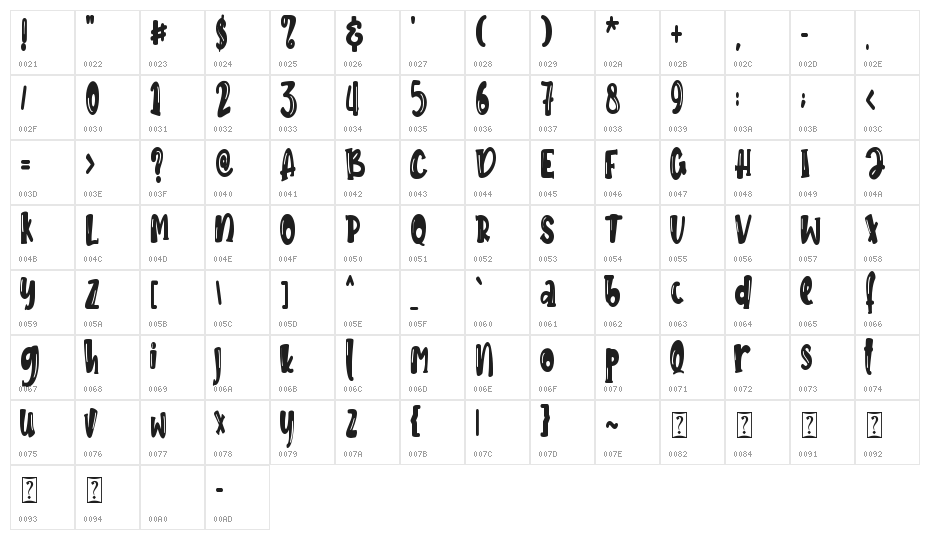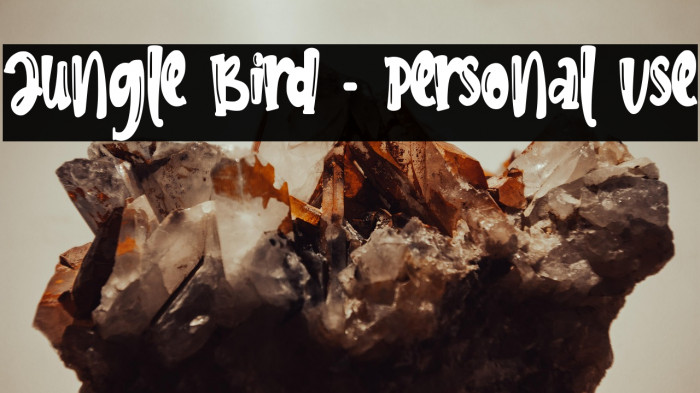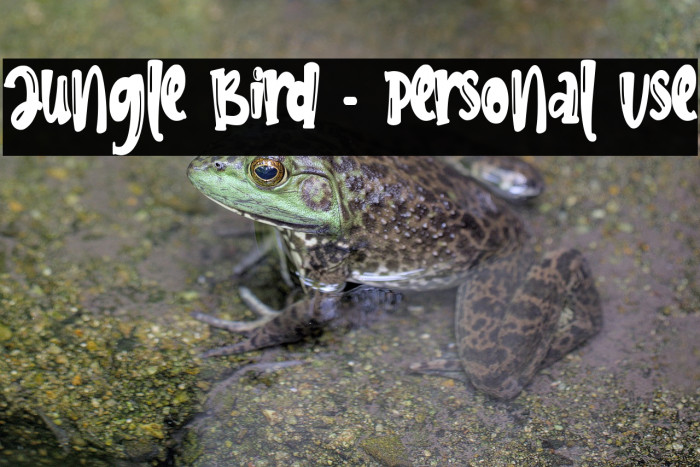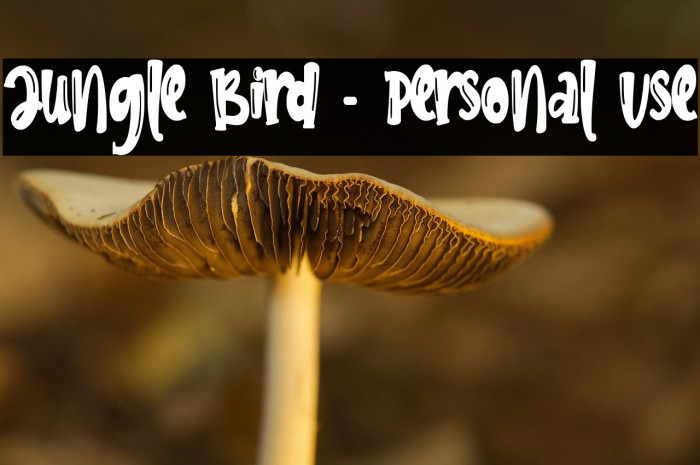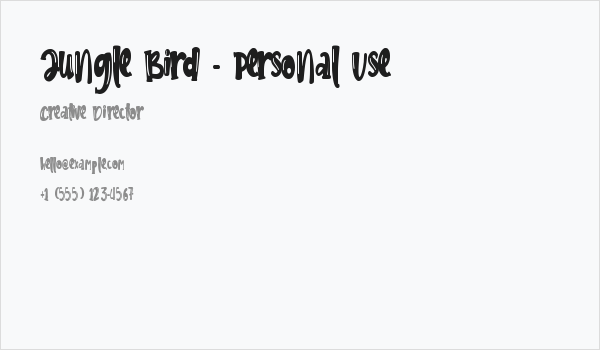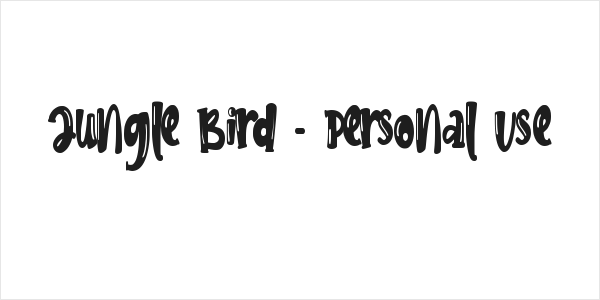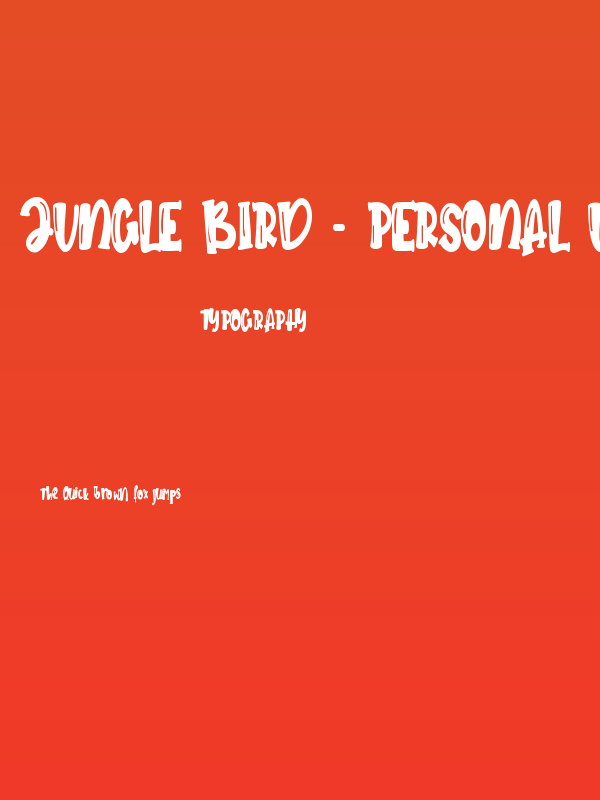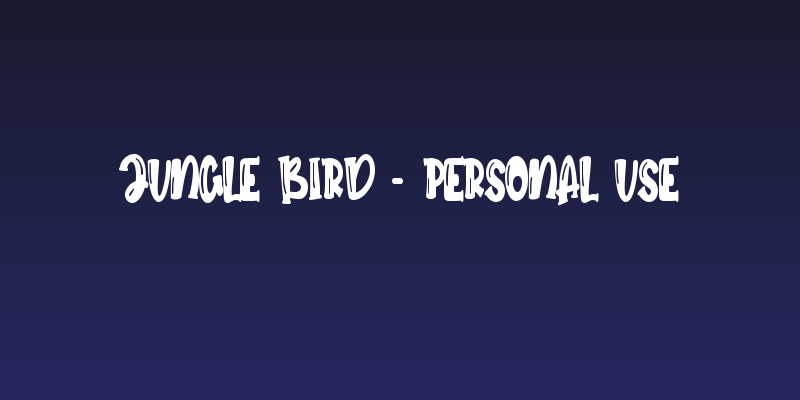
Jungle Bird - Personal Use Font
Jungle Bird - Personal Use Description
This font features a bold and playful design with exaggerated curves and thick strokes, giving it a lively and dynamic appearance. The letters are highly stylized, with a hand-drawn feel that adds a sense of whimsy and creativity. The uppercase and lowercase letters maintain a consistent style, with rounded edges and a slightly irregular baseline that enhances its informal and artistic look. The numbers and special characters follow the same design principles, ensuring a cohesive visual identity across all elements. This font is perfect for projects that require a fun and engaging aesthetic.
| Overall Style | Playful, Artistic |
| Proposed Projects | Ideal for children's books, playful branding, posters, and creative invitations. |